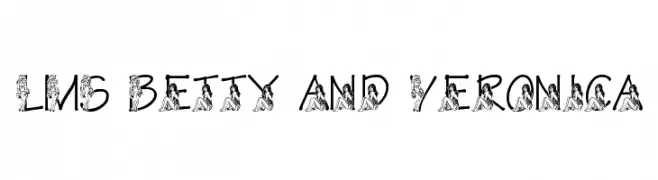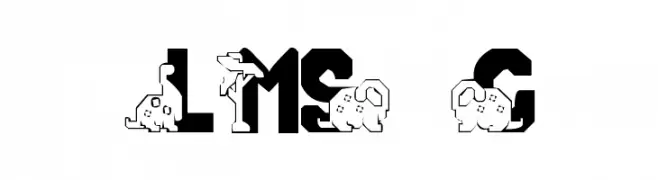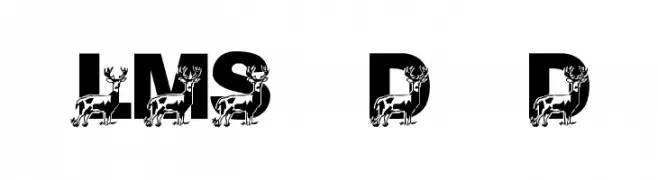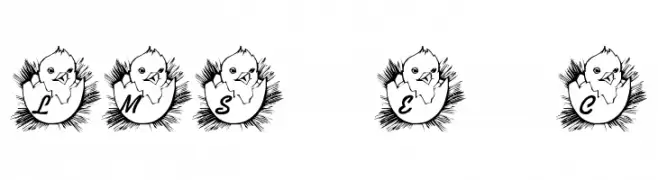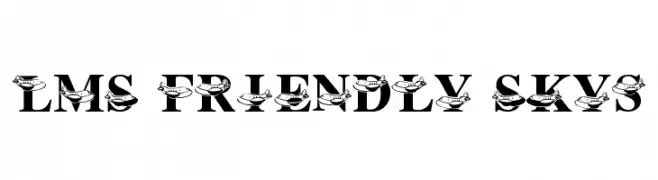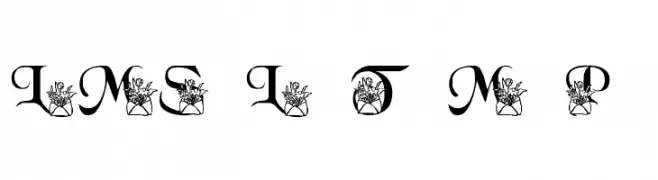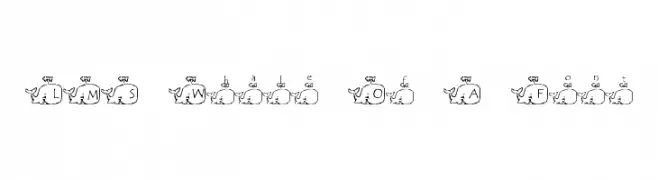
A decorative font with comic-style character illustrations integrated into each letter and number.
A playful, dinosaur-themed decorative font with bold, blocky letters.
A bold, decorative font featuring integrated deer silhouettes for a rustic, eye-catching design.
A whimsical font with letters nestled in Easter chick designs, perfect for festive projects.
A bold serif font with integrated airplane illustrations for a playful touch.
A decorative font with floral embellishments and a blend of serif and modern styles.
A bold, decorative font with integrated armadillo motifs for a playful touch.
A playful font with cartoon airplane motifs integrated into each letter.
A playful font with characters inside cartoon whales, perfect for fun projects.
A whimsical font featuring beloved children's show characters integrated into bold, sans-serif letters.